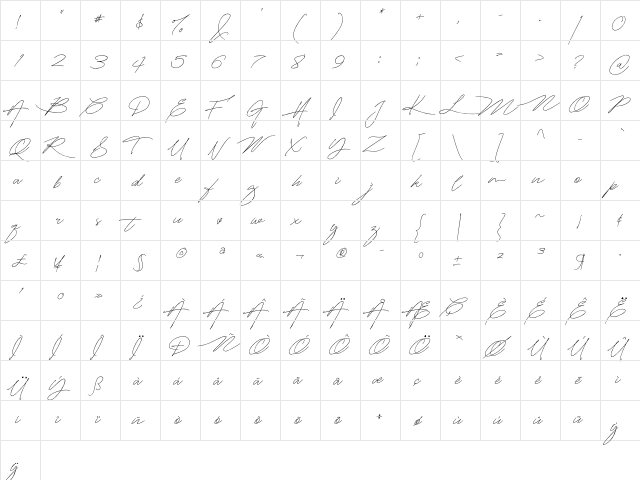
Mightam Brush Regular
Design Context for Mightam Brush Typeface
Mightam Brush brings a calligraphic fluidity to the page — its connecting strokes and expressive curves give it an unmistakably human quality.
Font Pairing: Combine Mightam Brush with a simple geometric sans for maximum contrast — the tension between flowing curves and clean structure is a classic typographic pairing.
Pro Tip: Pair Mightam Brush with a clean sans-serif for supporting text. The contrast between fluid script and geometric structure creates an elegant typographic hierarchy.